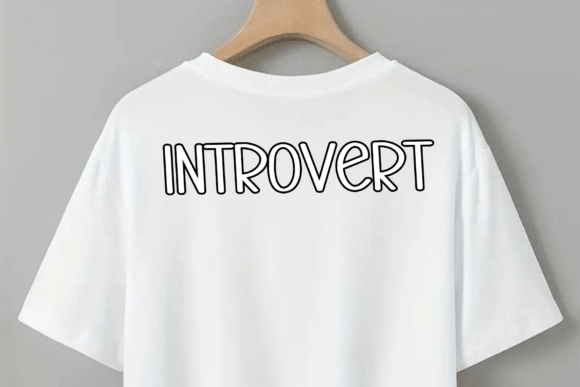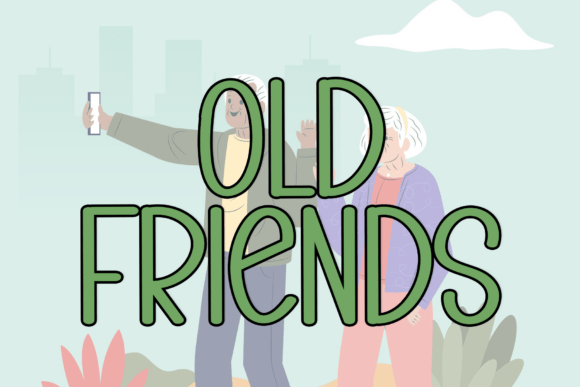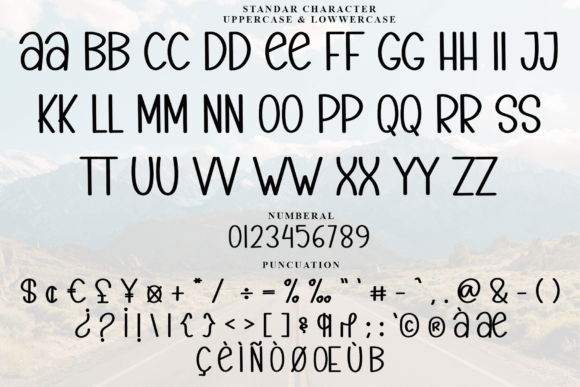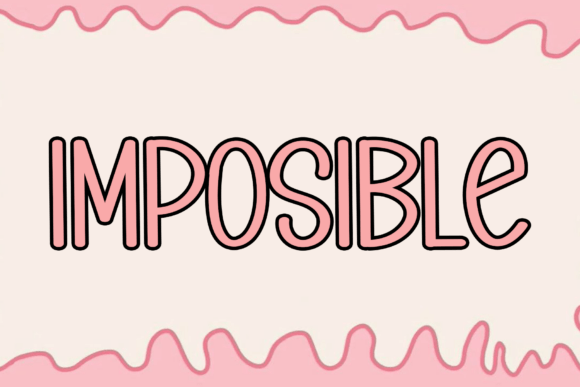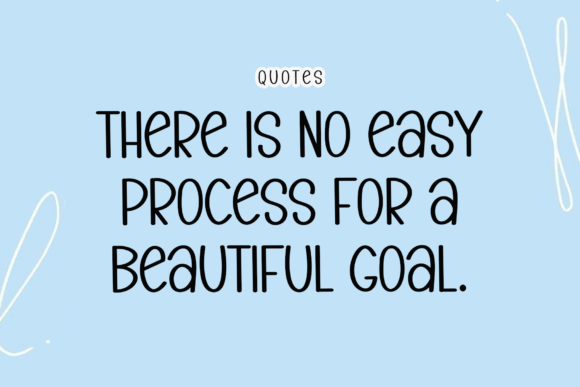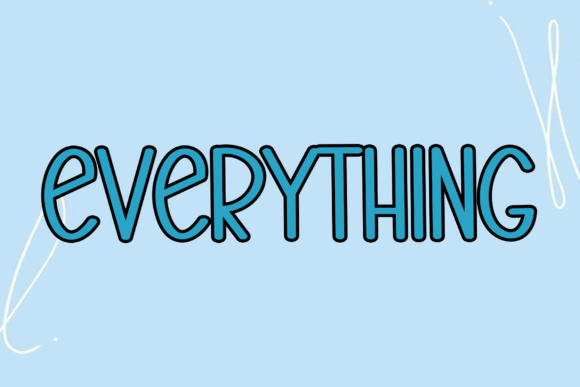
Introduction to Resume Font
Have you ever stared at a blank page, struggling to find the perfect font to match your creative vision? I know I have. One day, while brainstorming ideas for a new design project, I stumbled upon a font that changed everything. Its name was Resume, and it was love at first sight. With its fluid strokes and organic lines, Resume Font exudes a carefree charm that’s hard to resist.
As designers, we’re always on the lookout for high-quality design resources that can elevate our work. Resume Font is a valuable addition to any designer’s toolkit, offering a unique blend of freshness and elegance. Whether you’re working on branding, invitations, or social media graphics, Resume Font adds a touch of warmth and personality that’s sure to captivate your audience. Plus, with its transparent background, you can easily customize it to fit your needs.
Key Features of Resume Font
- High-quality design resource ideal for creative projects, including resumes, business cards, and more.
- Unique, modern font style designed to make your resume or business card stand out.
- Perfect for individuals and businesses seeking a professional, high-quality design resource for their creative projects.
Honest Review: Resume Font
As a designer, I’m always on the lookout for high-quality design resources that make my creative projects stand out. Recently, I stumbled upon Resume Font, and I’m excited to share my honest review with you.
What works well with Resume Font is its sleek and modern design. The font is perfect for creating a professional-looking resume or CV, and it’s available as a free download. The transparent background makes it easy to use with different backgrounds and designs. Additionally, Resume Font is highly customizable, allowing you to adjust the font size, style, and color to suit your needs.
Here are some of the key features that I love about Resume Font:
- High-quality design that’s perfect for professional projects
- Highly customizable with adjustable font size, style, and color
While Resume Font is an excellent design resource, I do have a few limitations to note:
- It’s only available in a limited number of font styles (⚠️)
- Some users may find the font too minimalist for certain designs (⚠️)
Overall, I’m impressed with Resume Font and would definitely recommend it to designers looking for a high-quality design resource. With its sleek design and high level of customization, it’s perfect for creating professional-looking resumes and CVs.
Tips for Getting the Most Out of Resume Font
Use Resume Font on a transparent background to create a clean and professional look. Experiment with different font sizes and styles to add visual interest to your design. You can also use Resume Font in combination with other design resources, such as graphics and images, to create a high-quality creative project.
Resume Font is perfect for creating high-quality resumes, cover letters, and other business documents. It’s also great for designing marketing materials, such as brochures and flyers, and for creating a consistent brand identity. With Resume Font, you can create a professional and polished look that’s sure to make a great impression.